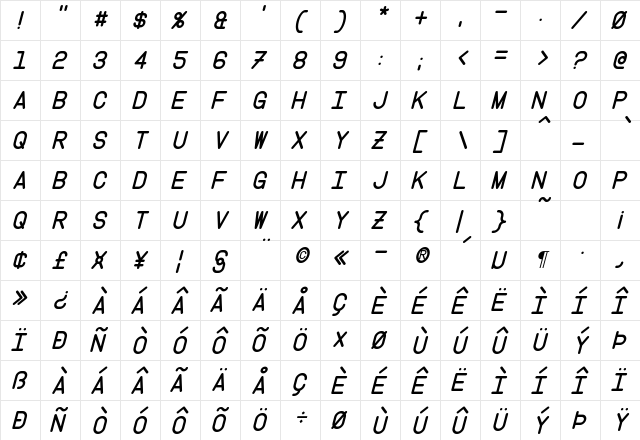
Instruction Italic
| Foundry | Pixel Sagas |
| Designer | Neale Davidson |
Design Context for Instruction Typeface
Instruction offers clean, dependable letterforms without strong stylistic allegiance, making it a practical choice for designers who need flexibility. Its italic angle brings a sense of urgency and motion to the letterforms.
Pro Tip: Try Instruction for annotation and caption copy alongside an upright companion — the contrast in angle creates a dynamic but ordered typographic system.